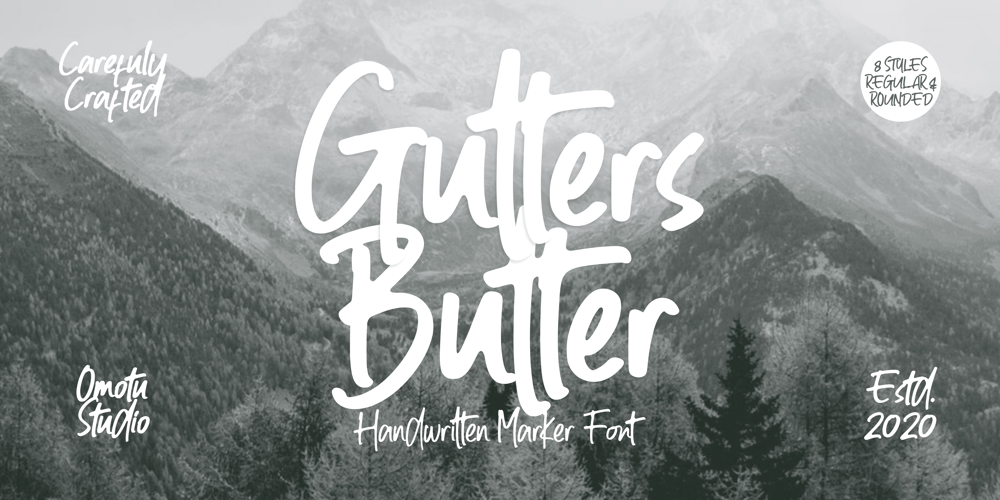
Gutters Butter Font Family was designed by Ibnu Utomo and published by Omotu. Gutters Butter contains 8 styles and family package options. Gutters Butter! A handwrittent marker font with 8 styles, Gutters Butter Regular, Gutters Butter Regular Italic, Gutters Butter Regular Bold, Gutters Butter Regular Bold Italic, Gutters Butter Rounded, Gutters Butter Rounded Italic, Gutters Butter Rounded Bold, Gutters Butter Rounded Bold Italic. Gutters Butter font is suitable for branding, logotype, apparel, T-shirt, Hoodie, product packaging, quotes, flyer, poster, advertising, etc. Whats Include? Uppercase and lowercase characters Supports international languages Opentype feature: ligatures, alternate Accessible in the Adobe Illustrator Glyphs panel, or under Stylistic Alternates in the Adobe Photoshop OpenType menu, Adobe InDesign, Corel Draw, even work on Microsoft Word Please message me if you’re unsure of any language support. Thanks for looking, and I hope you enjoy it! Please don’t hesitate to drop me a message if you have any issues or queries.